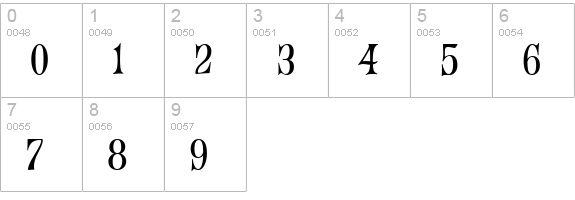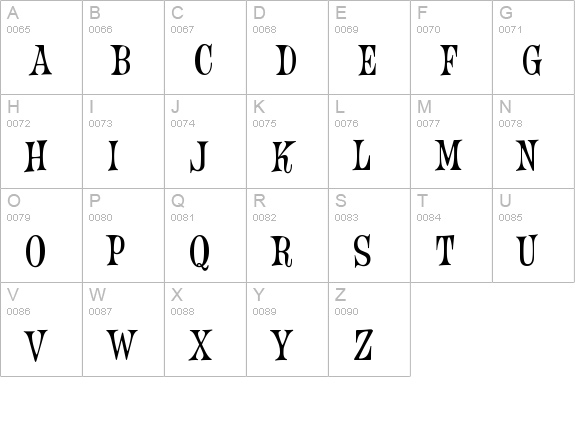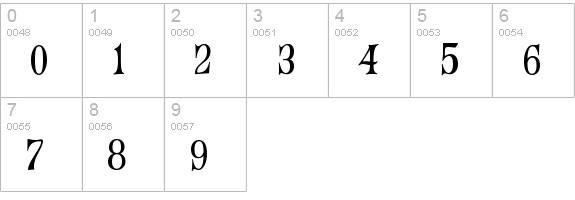
FanfareJF font is a stylish and elegant typeface that exudes sophistication and charm. With its unique flourishes and playful curves, this font is perfect for adding a touch of whimsy to any design project. Whether you're creating invitations, posters, or branding materials, FanfareJF will surely make a statement. What's even better is that FanfareJF font is completely free to download at FontsMarket.com. This means you can access this beautiful typeface without any cost, making it a valuable addition to your font collection. Don't miss out on the opportunity to elevate your designs with FanfareJF font today!